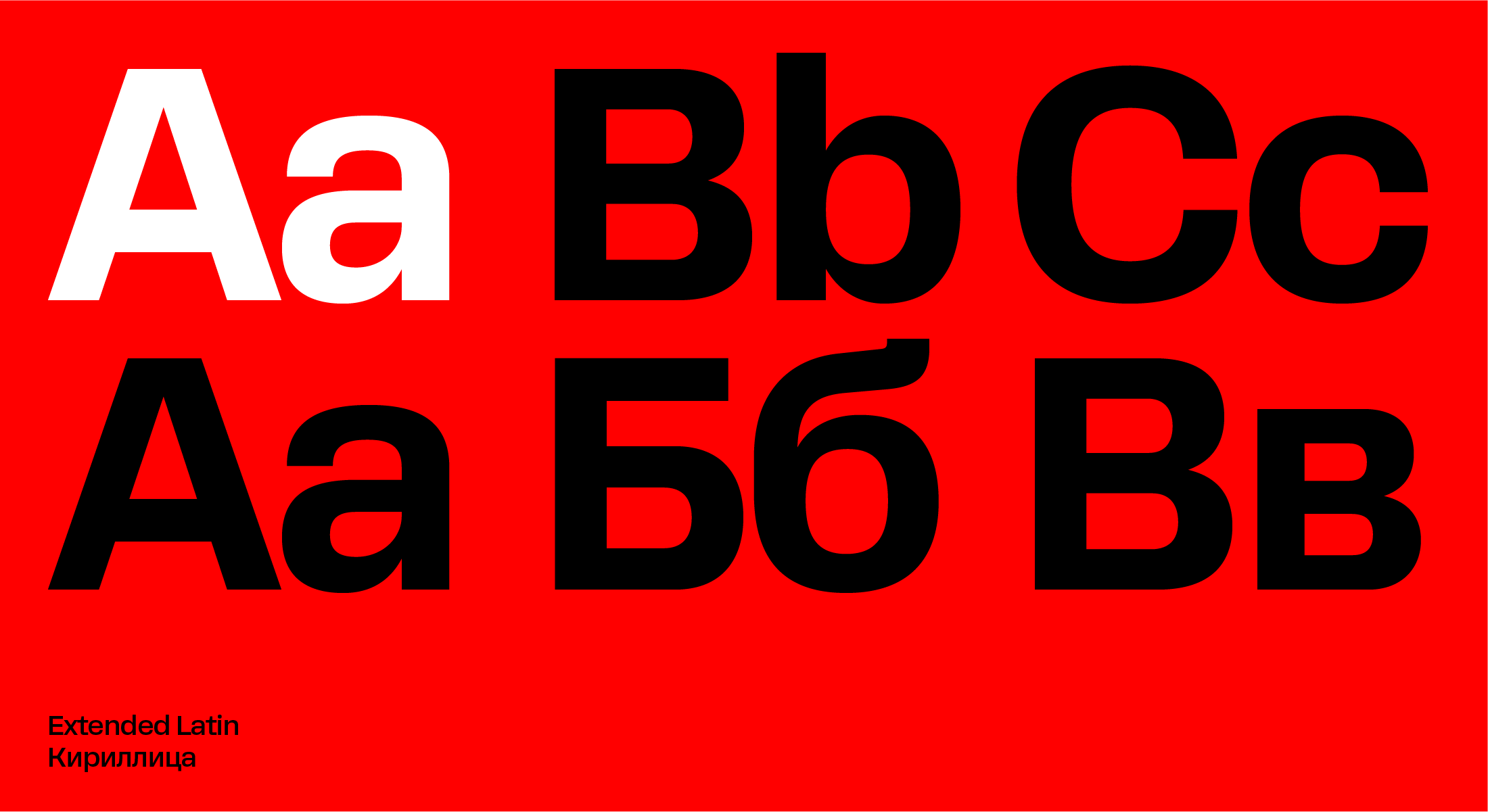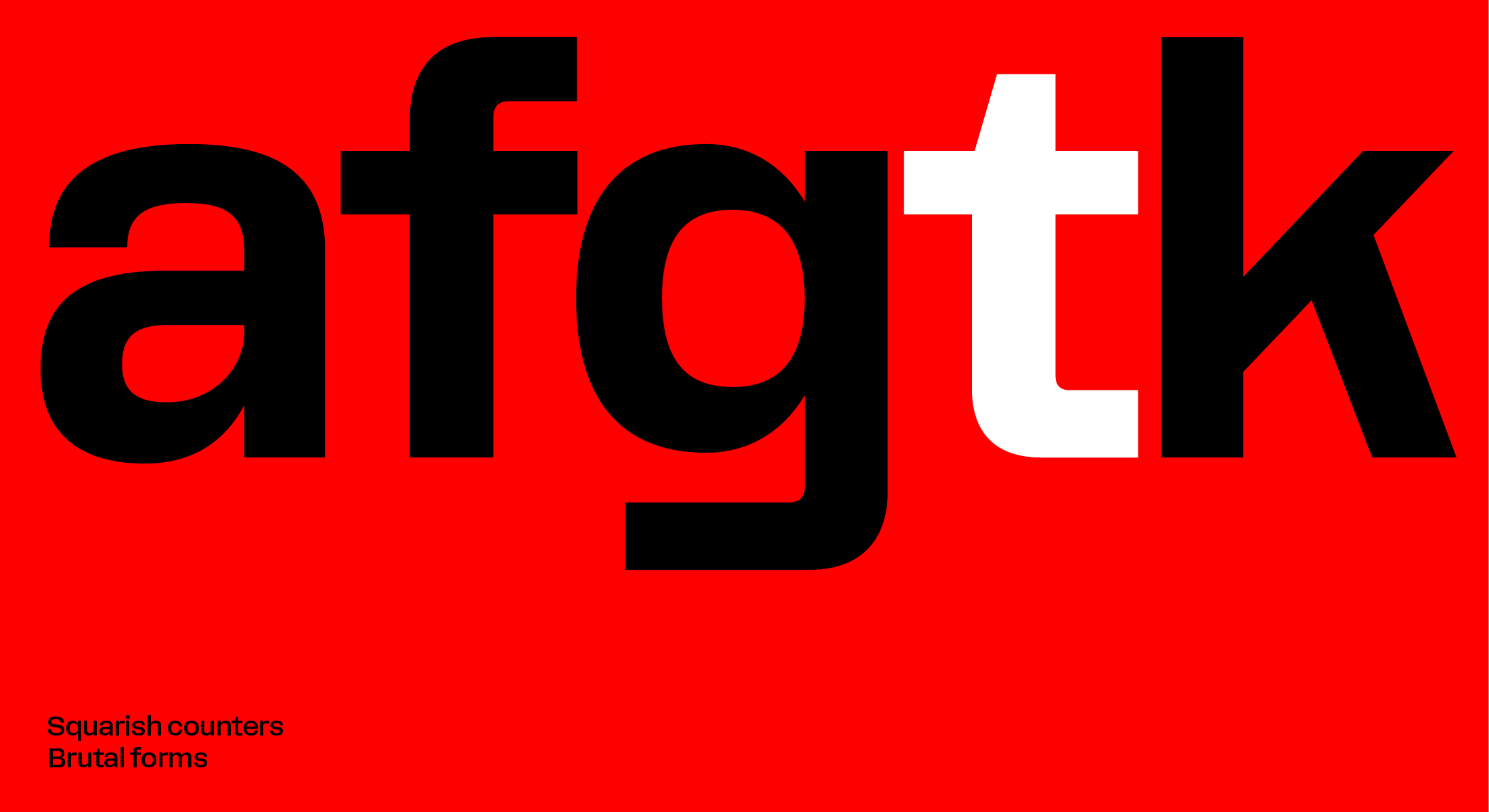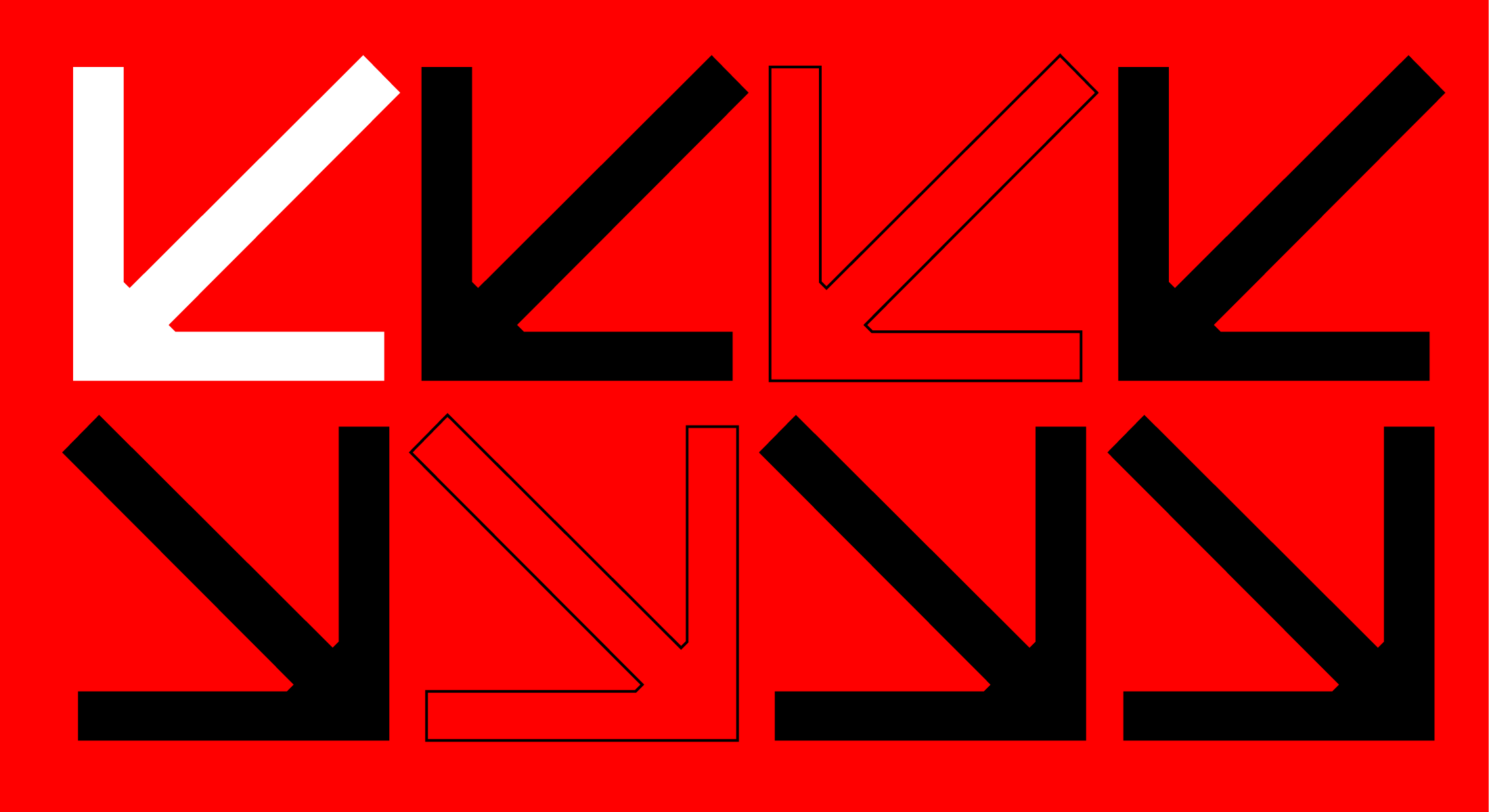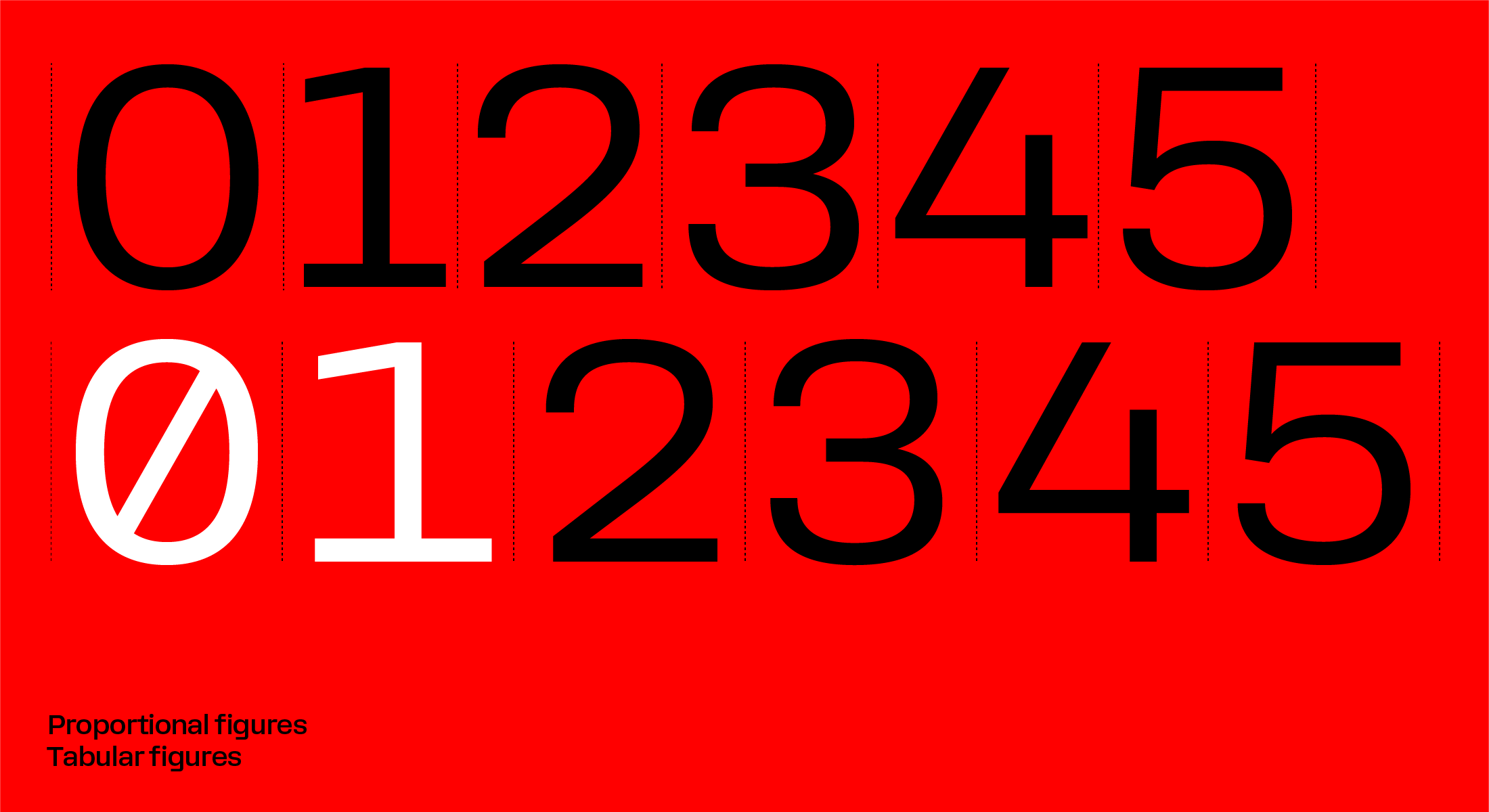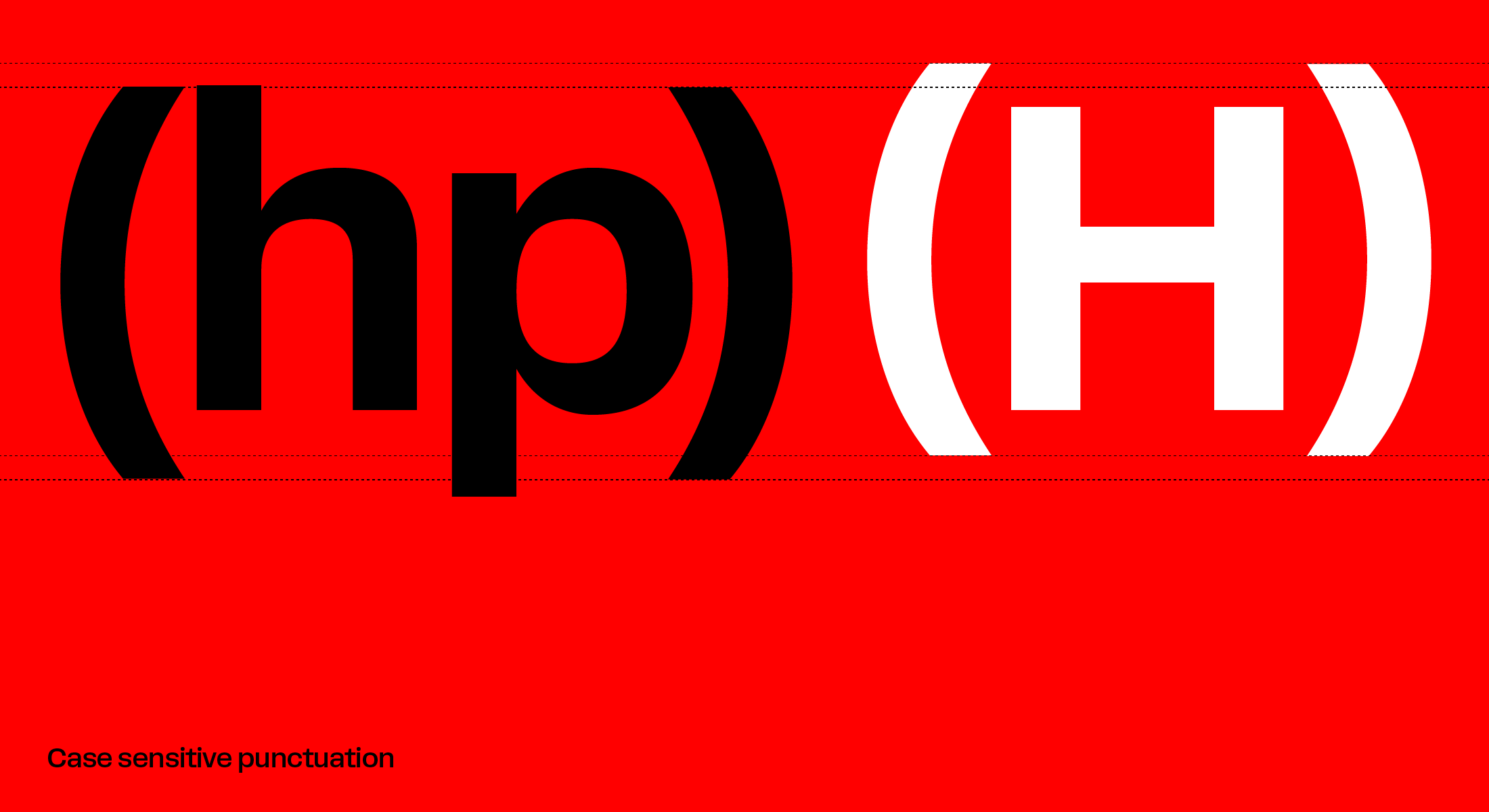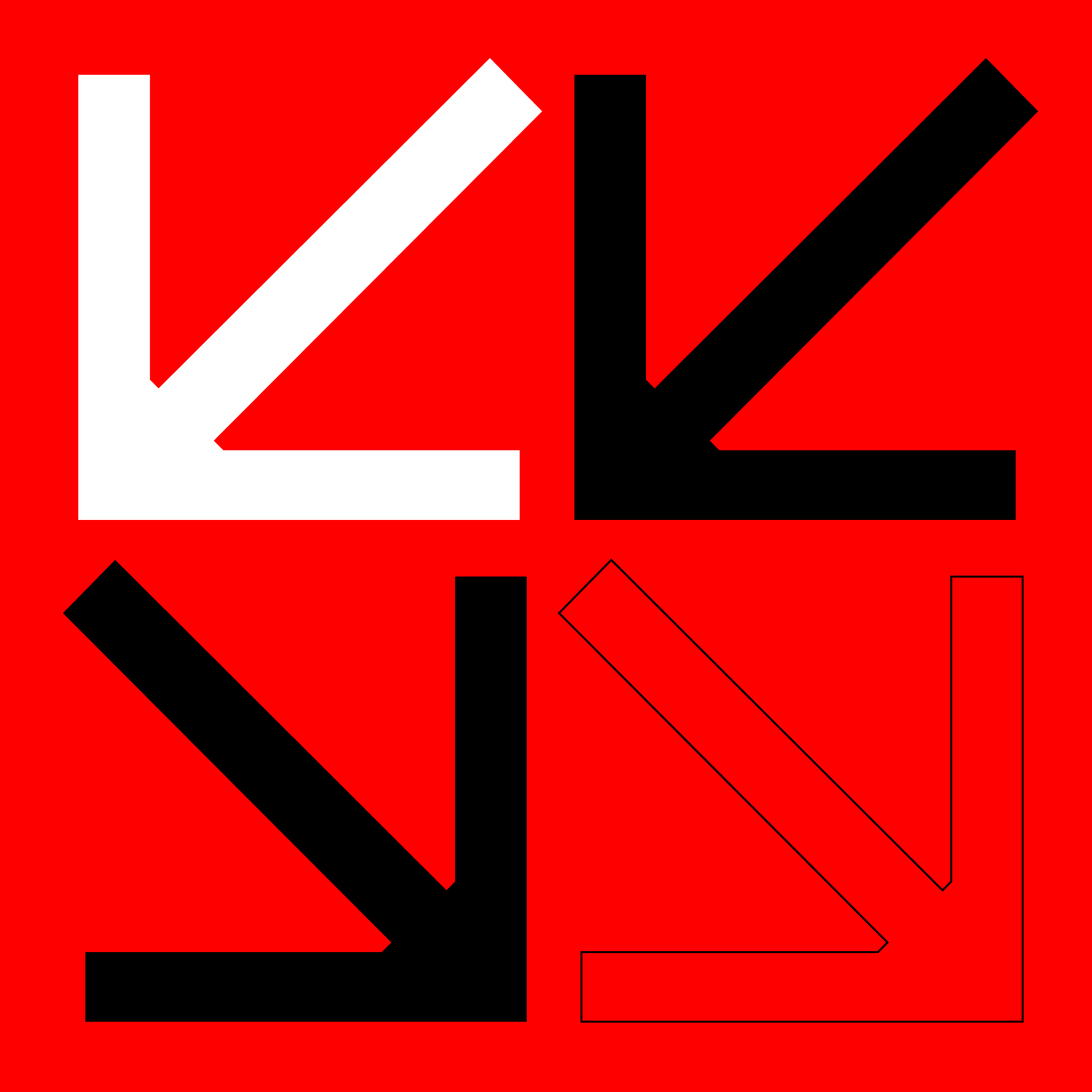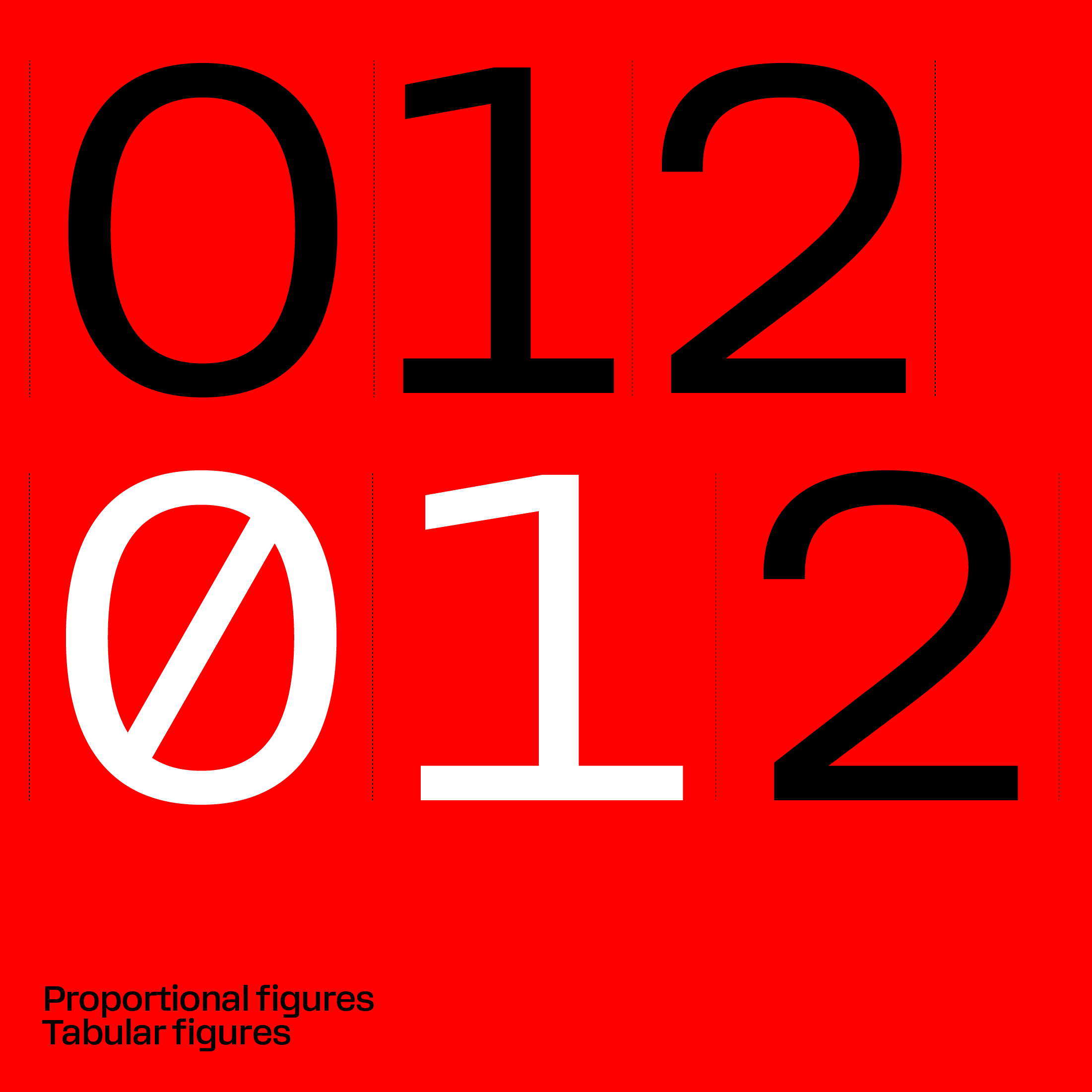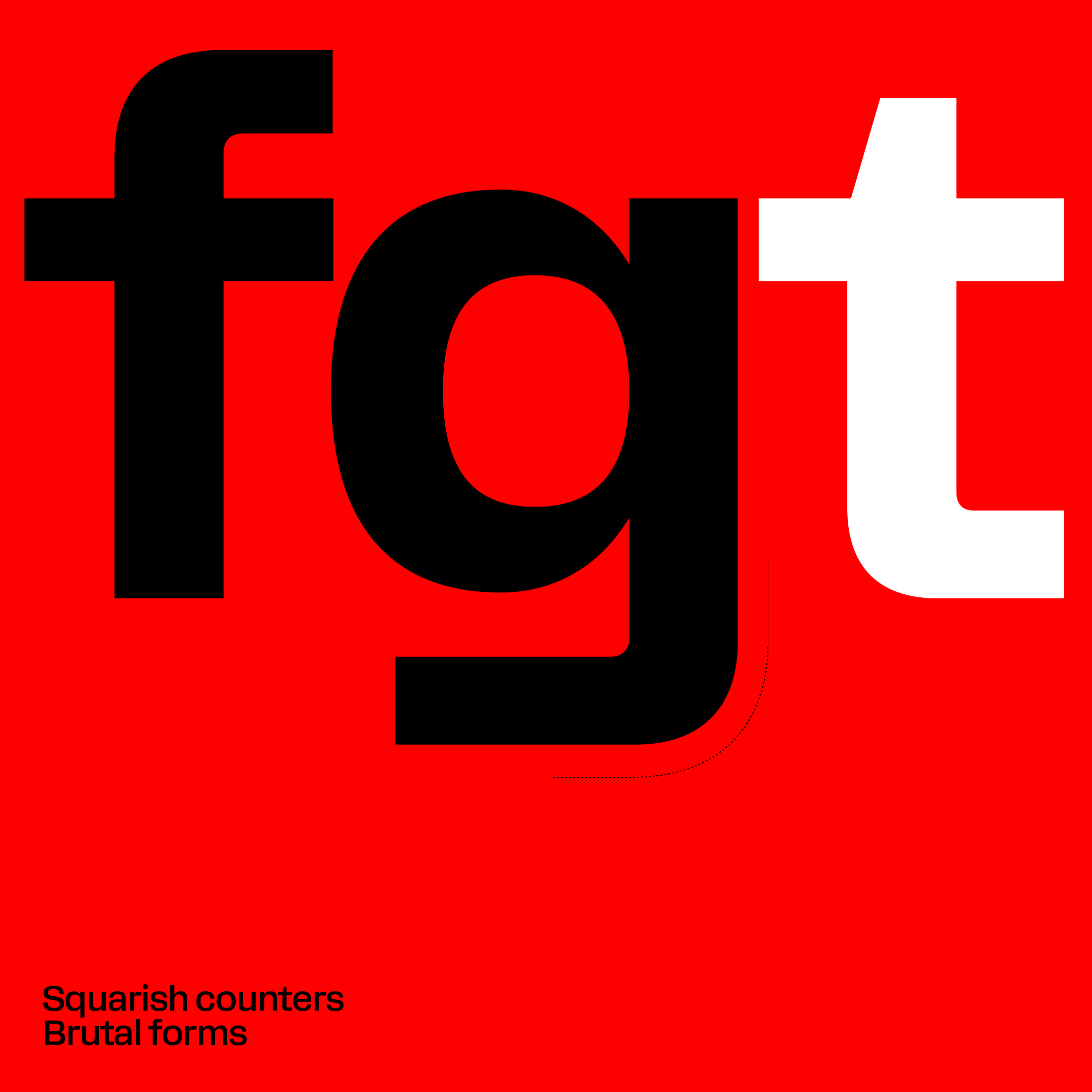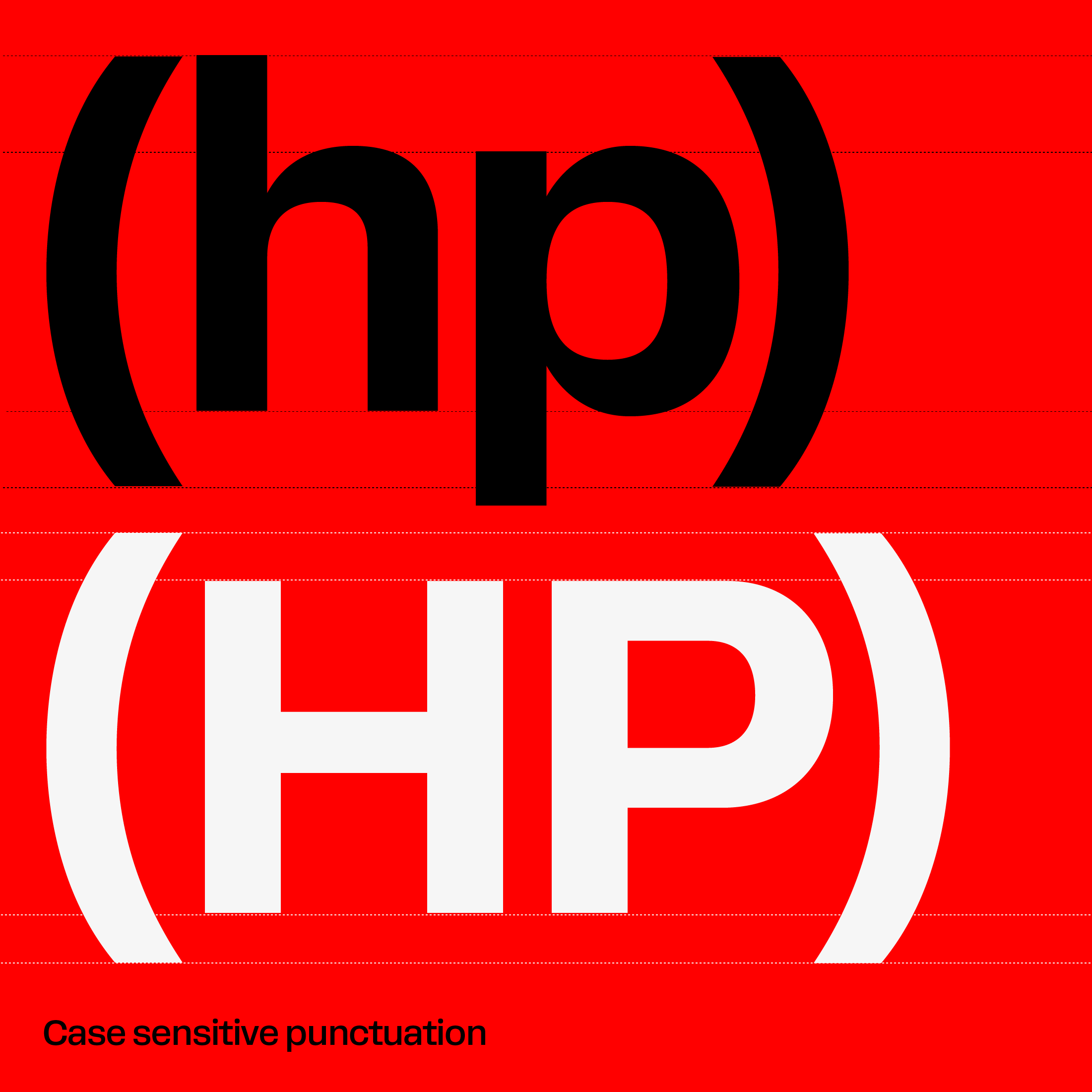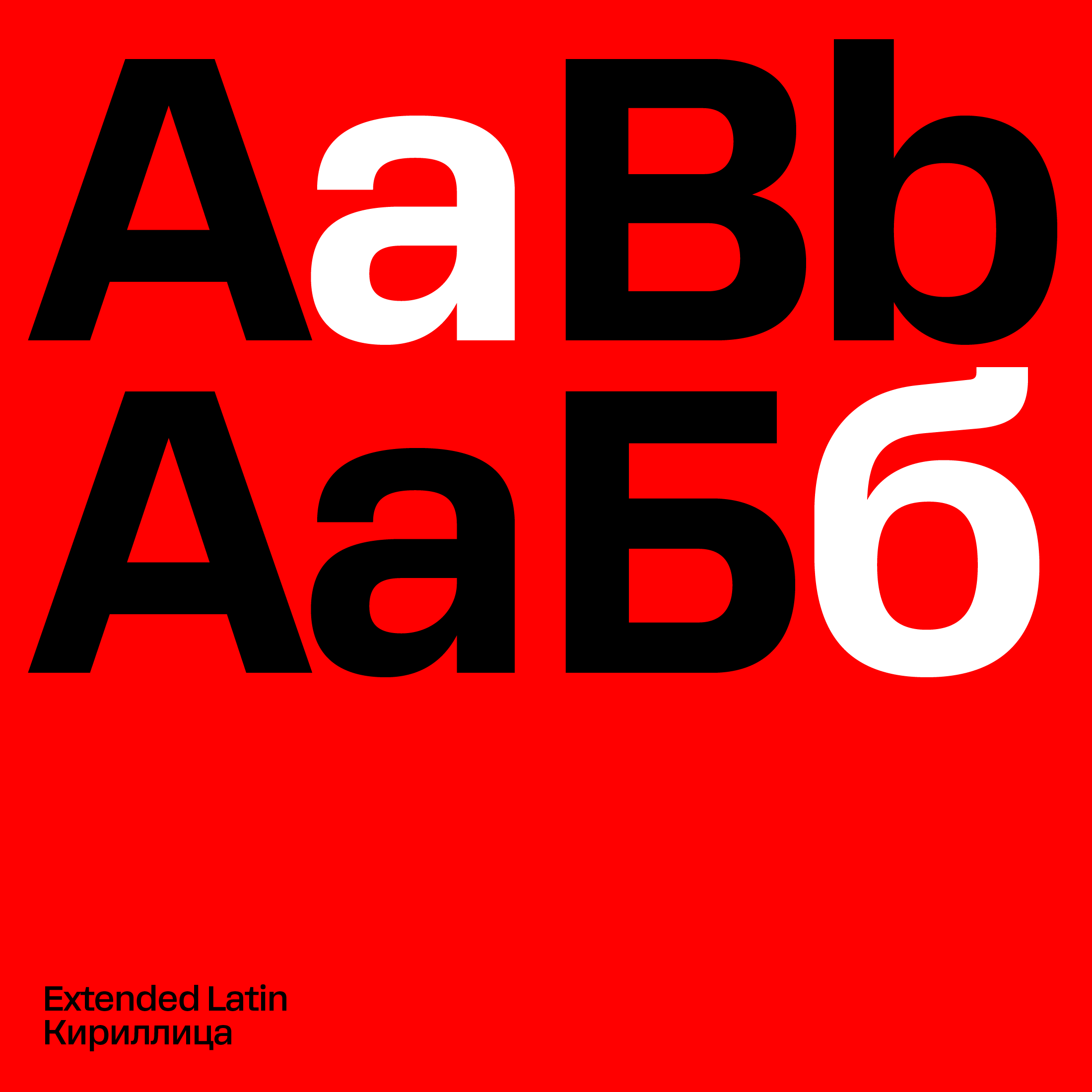
Rooftop, a quick story
Largely inspired by the american grotesks of the early 20th century such as Lining Gothic of Barnhart Bros. and Spindler or Gothic No. 2 of Palmer & Ray, Rooftop carries humanist approach to grotesk typeface construction and adds a 21st century tech start up vibe to it. Slightly squarish curves — a somewhat forgotten approach in the last 10-15 years makes Rooftop feel somewhat sturdier and techier. This idea is complemented by the brutal approach taken to constructing letters like f,t,r,g,y. Designed with legibility in mind, Rooftop works well in all sizes and can be used in print or web.
Scripts: Extended Latin, Cyrillic